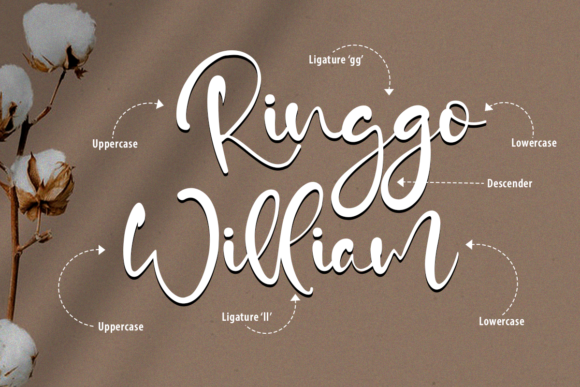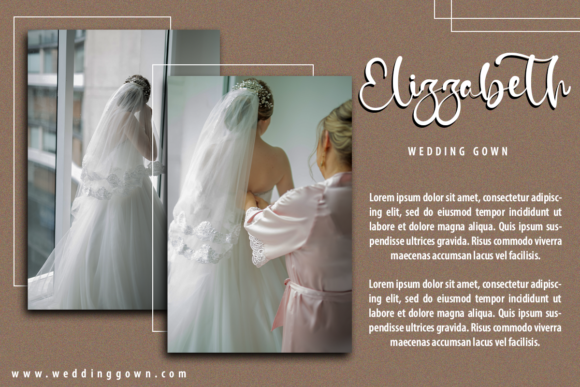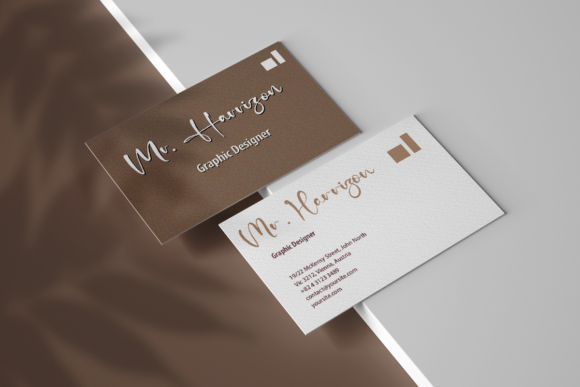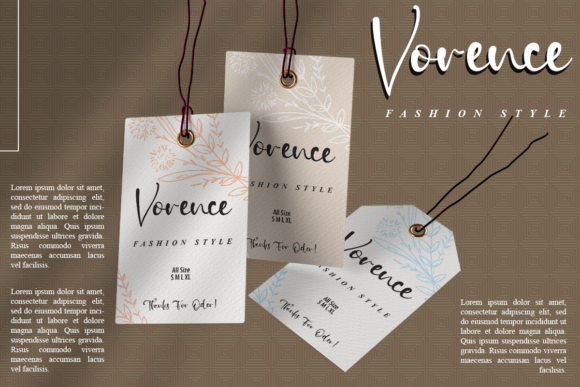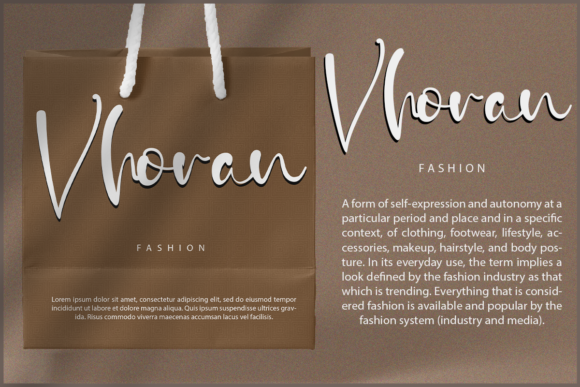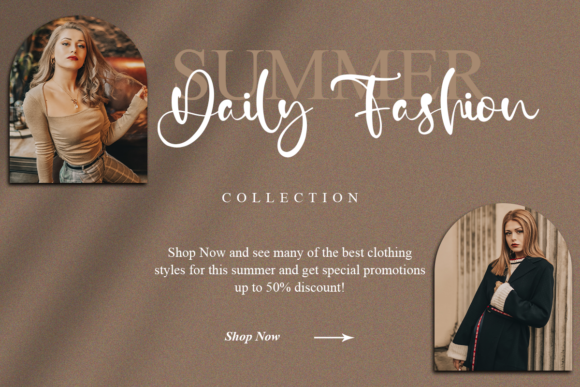
Introduction to Sean Gary Font
Do you remember that moment when you finally find the perfect design element for your creative project? The one that brings everything together, elevating your vision to new heights? For designers, that moment is often a result of discovering a high-quality font that perfectly captures the essence of their design. For me, that moment came when I stumbled upon the Sean Gary Font.
This beautiful script font is a game-changer, offering a classy, elegant, and modern look that’s perfect for a wide range of applications, from logos and branding to invitations and wedding designs. With its refined feel, Sean Gary Font is a valuable design resource that can take your creative projects to the next level. And the best part? It’s available for free download, making it an accessible addition to any designer’s toolkit.
Whether you’re working on a personal project or a client’s brief, Sean Gary Font is a high-quality asset that’s sure to impress. With its transparent background and versatile style, it’s the perfect choice for designers looking to add a touch of sophistication to their designs. So why not give Sean Gary Font a try and see the difference it can make in your next creative project?
Key Features of Sean Gary Font
- High-quality, unique font design suitable for creative projects, including graphics, logos, and more.
- Features a transparent background, allowing for easy customization and integration into various designs.
- Resolution: Optimized for high-resolution displays, ensuring crisp and clear text at any size.
- Designed with versatility in mind, making it suitable for a wide range of creative projects, from print to digital media.
Honest Review: Sean Gary Font
I recently stumbled upon the Sean Gary Font, a beautiful free download that I’m excited to share with fellow designers. This font is perfect for creative projects where a touch of elegance is required. Its high quality and versatility make it a valuable design resource.
- ✨ The Sean Gary Font comes in both regular and bold weights, providing ample options for designers.
- ✨ The transparent background makes it easy to overlay on images and backgrounds.
- ✨ The font’s sleek design is perfect for creative projects, such as branding, marketing materials, and editorials.
- ⚠️ The font’s character set is limited, which may not be suitable for projects requiring extensive international support.
- ⚠️ Some users may find the font’s design too generic, lacking distinctiveness.
Overall, I’m impressed with the Sean Gary Font. Its high quality and flexibility make it a valuable addition to any designer’s toolkit. While it may have some limitations, it’s an excellent choice for creative projects requiring a touch of sophistication.
To get the most out of the Sean Gary Font, use it with a transparent background to create a clean and modern look. You can also pair it with other fonts to create a unique and eye-catching design.
The Sean Gary Font is ideal for use in creative projects such as logos, brochures, and business cards. It’s also a great choice for use in digital design projects, such as social media graphics and websites.